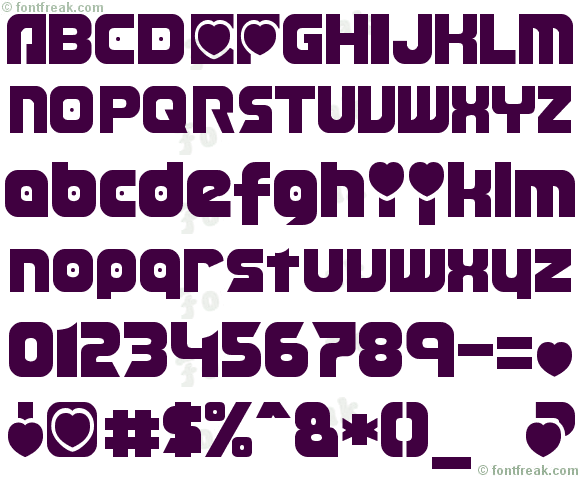
Transmaidens
Transmaidens, designed by Neale Davidson in 2012, is a striking display font that embodies a unique blend of modernity and whimsy. This font stands out as a decorative typeface, characterized by its playful yet bold letterforms. The Transmaidens font features thick strokes with a consistent weight, giving it a robust presence, while the subtle contrast adds an element of sophistication. The letters exhibit a slight roundedness, which softens the overall aesthetic, making it approachable and engaging. The spacing is well-balanced, ensuring optimal readability even at larger sizes, and decorative elements like heart motifs integrated into specific letters enhance its charm.
This versatile font is ideal for a variety of applications. Its playful nature makes it perfect for wedding invitations, where it can add a touch of elegance and whimsy. It also works beautifully in children’s book covers, where the fun design can attract young readers. Additionally, Transmaidens is suitable for promotional materials for cafes and restaurants, where its inviting style can create a warm atmosphere. Graphic designers looking to make a statement in branding projects will find this font an excellent choice for logos and creative marketing campaigns. Furthermore, content creators on social media can utilize this font to capture attention with eye-catching graphics.